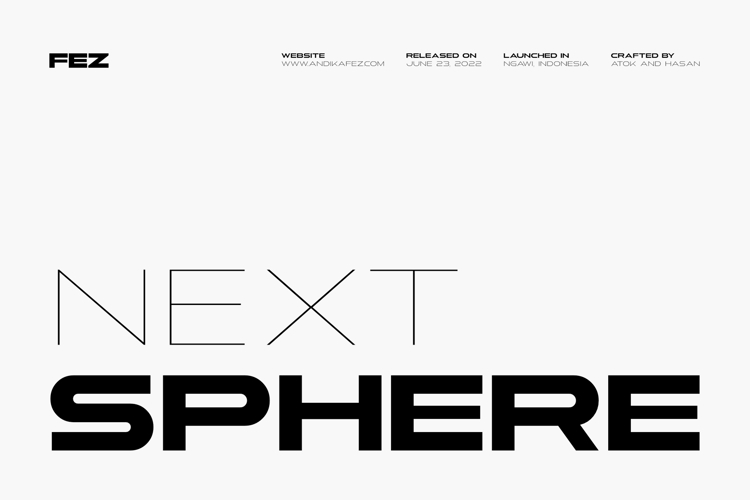
Next Sphere Extra Bold Font
About Next Sphere Extra Bold Font
Introducing the Ultimate Free Sans Serif Font Family: Next Sphere – A Fusion of Techno and Extended Elegance!
Elevate your brand identity and design projects to new heights with our Sans Serif Font Family—a meticulously crafted collection of nine fonts that seamlessly blend the sleek precision of techno with the bold sophistication of extended letterforms. Designed with versatility in mind, this font family is your passport to creating unforgettable logos, branding, and headlines that demand attention.